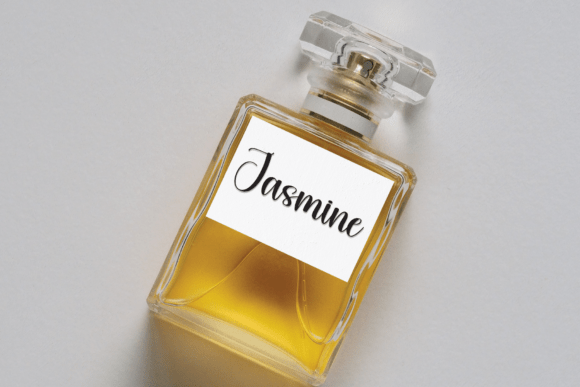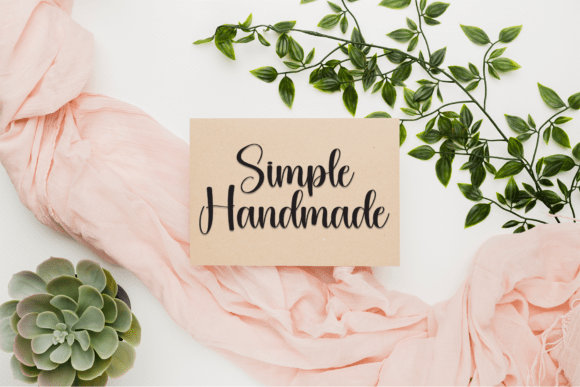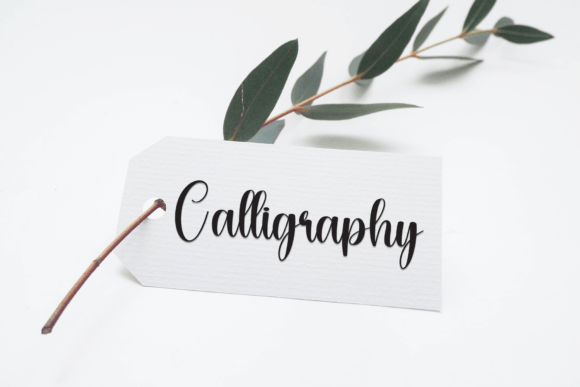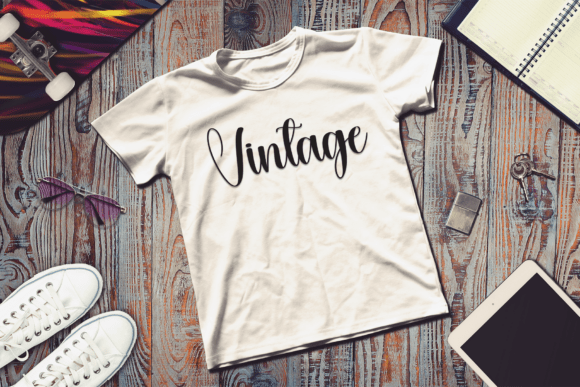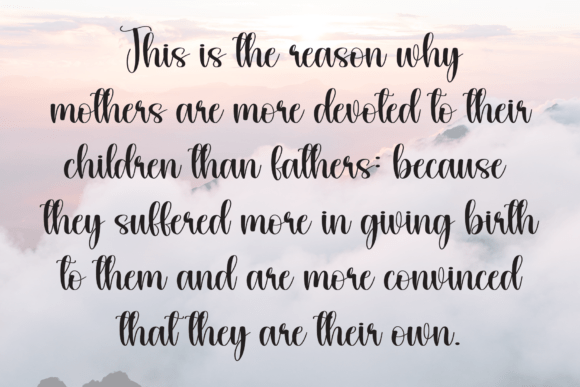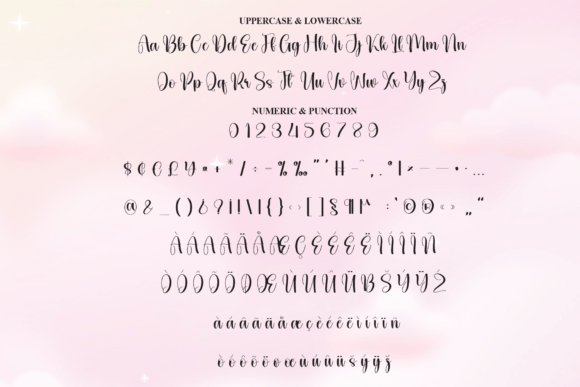
The Elusive Perfect Font: A Designer’s Quest
I’ll never forget the countless hours I spent searching for the perfect font for a client’s wedding invitation project. The design brief was simple: elegant, sophisticated, and personal. Sounds easy, right? But, as any designer knows, finding that one font that ticks all the boxes can be like looking for a needle in a haystack. That’s when I stumbled upon **Charming**, a stylish handwritten script font that would change the game.
First Impressions: A Love Affair with Charming
As soon as I laid eyes on Charming, I knew I had found something special. Its smooth, flowing strokes radiated elegance and fluidity, giving off a natural and sophisticated feel. It’s perfect for branding, invitations, and creative projects that require a personal, artistic touch.
An Honest Review: The Good, the Bad, and the Quirky
What I Love About Charming ✨
- ✅ Elegant and sophisticated feel
- ✅ Smooth, flowing strokes that create a natural look
- ✅ Perfect for branding, invitations, and creative projects
- ✅ Highly versatile and adaptable to different design styles
- ⚠️ Limited use of uppercase letters, which can make it less suitable for headlines or titles
- ⚠️ Some users may find the font a bit too ornate or over-the-top for certain projects
- Experiment with OpenType features, such as ligatures and stylistic alternates, to add more personality to your text.
- Choose Charming from your font library and explore the OpenType features, such as glyphs and stylistic alternates, to add more depth and character to your text.
The Story Behind Charming: A Designer’s Inspiration
Charming was created with the intention of crafting a font that exudes elegance and sophistication. The designer aimed to create a typeface that would add a personal, artistic touch to any design project. With its smooth, flowing strokes and natural feel, Charming has become a go-to font for designers and crafters alike.
Q: What makes Charming so special?
A: Charming’s unique blend of elegance and fluidity makes it a standout font. Its smooth strokes and natural feel create a sophisticated look that’s perfect for a variety of design projects.